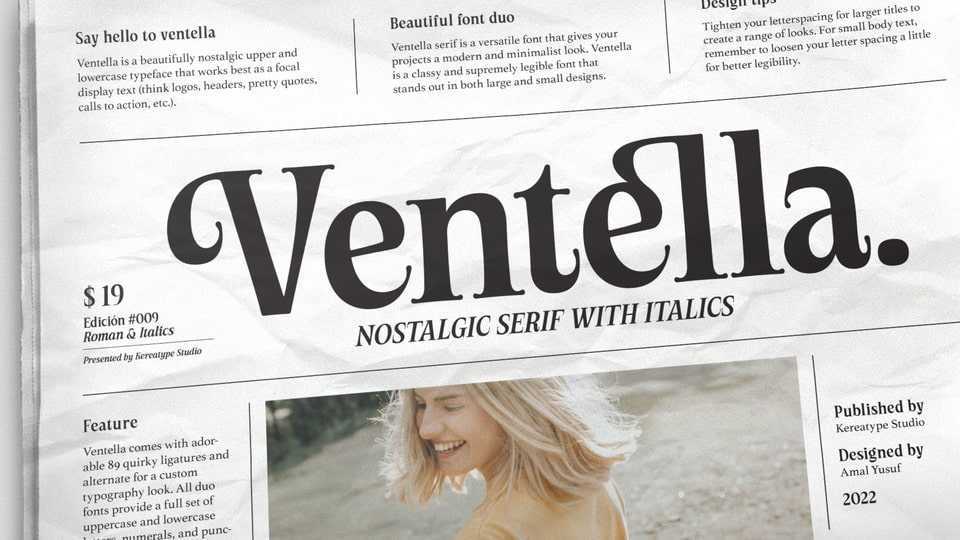
Download Ventella Serif font, a beautifully nostalgic versatile typeface that gives your projects a modern and minimalist look. Ventella is a classy and supremely legible font that stands out in both large and small designs be it a display or body text.